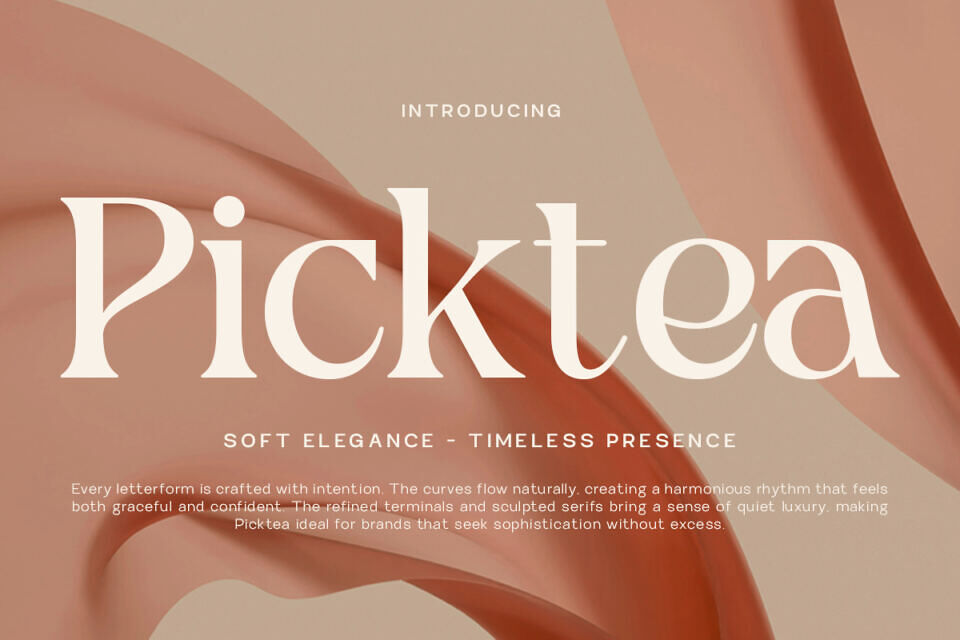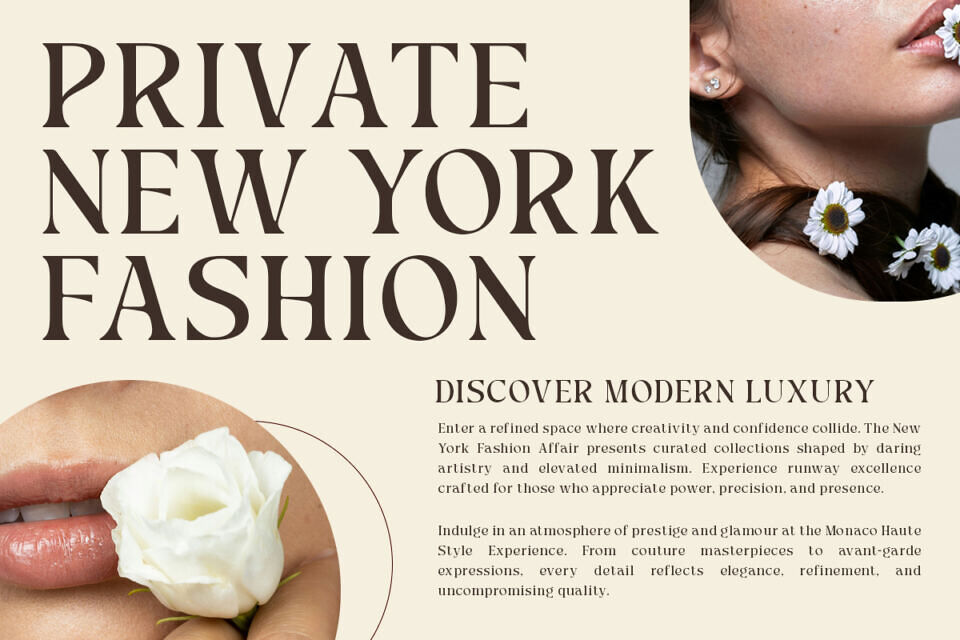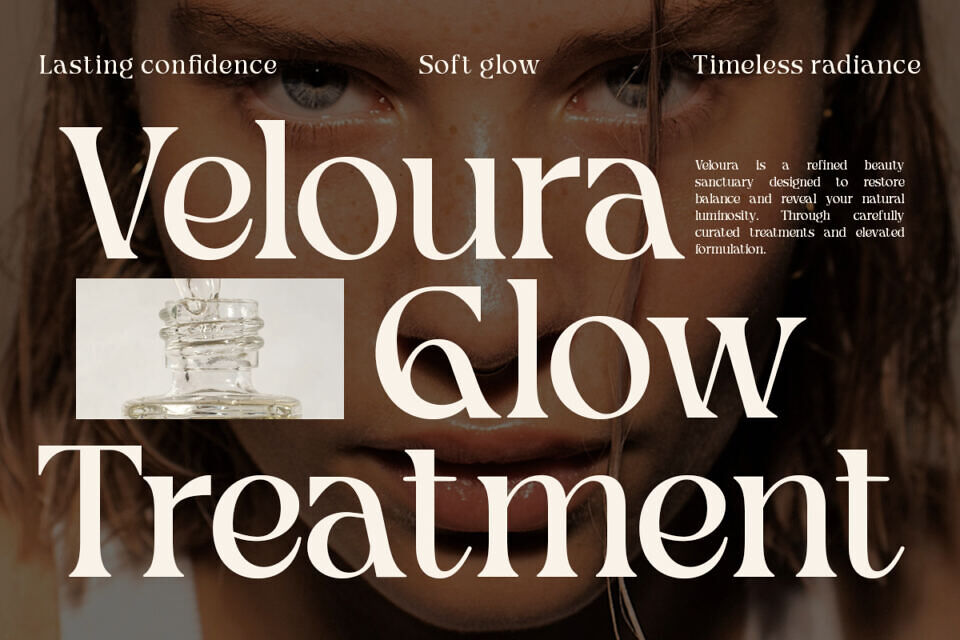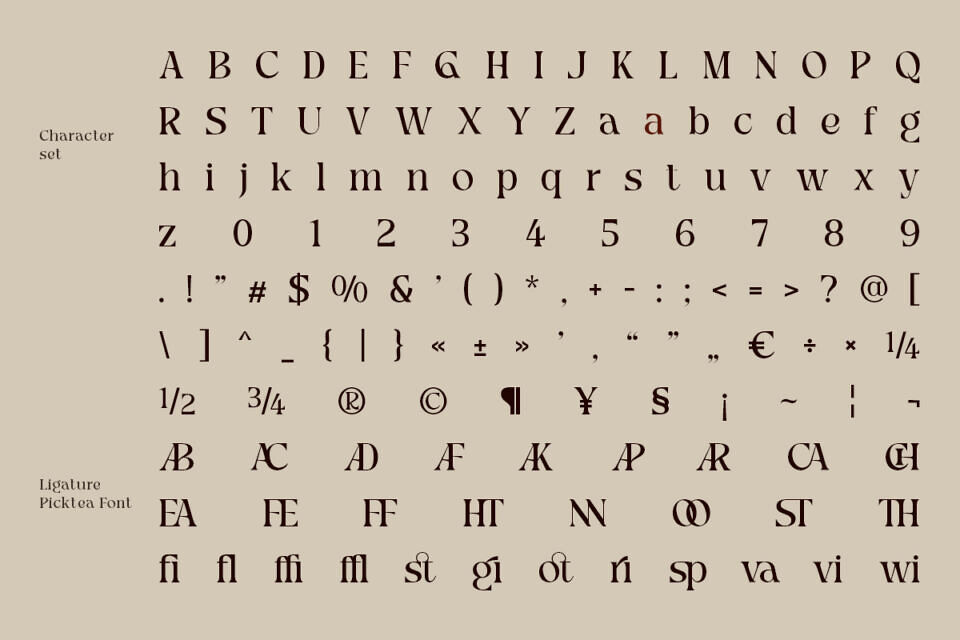
Picktea Font
Picktea is an elegant modern serif display font crafted to bring soft sophistication and timeless beauty into contemporary design. With its sculpted serifs, flowing curves, and balanced proportions, Picktea creates a refined typographic voice ideal for luxury branding, fashion campaigns, editorial layouts, and premium packaging.
Designed for visual harmony and professional readability, Picktea delivers a graceful presence while maintaining strong character in headlines and logos.